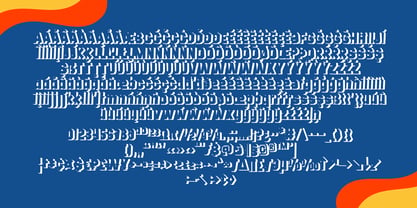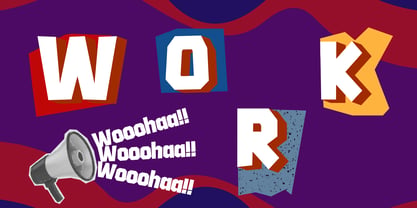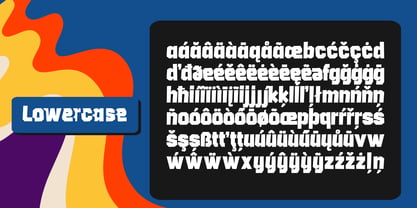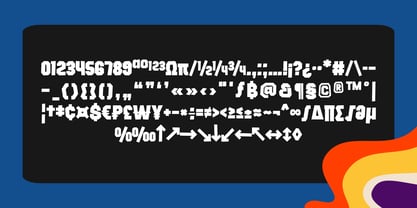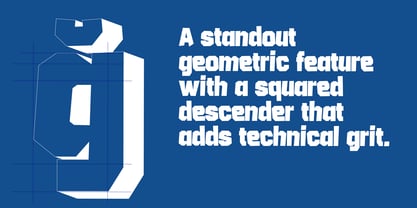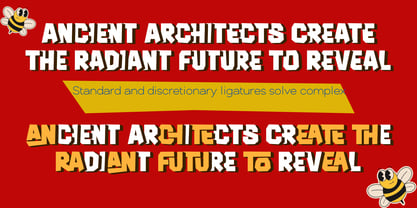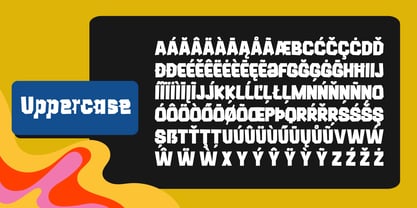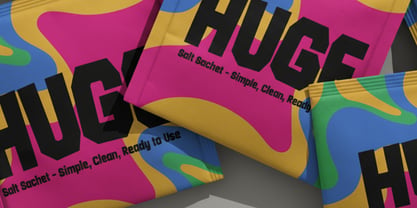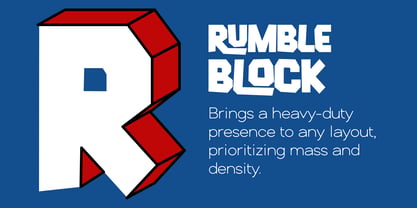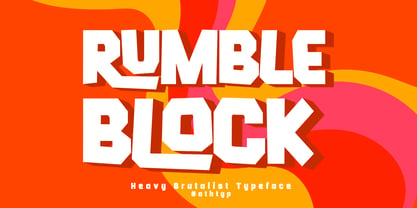
Rumble Block
by Authentype
The Rumble Block Font Family was designed by Ekayasa and published by Authentype. Rumble Block contains 2 styles and family package options. More about this family
This font is a bold statement in geometric construction. Built with rigid, chamfered corners and a dense optical weight, it captures an industrial aesthetic perfect for streetwear, esports branding, and architectural signage. The family includes a regular and a layered shadow style, allowing designers to create depth without complex effects. Its low x-height and tight counters create a rhythm of solid black shapes, making headlines feel grounded and structural. Whether used for a tech startup or a gritty editorial layout, this typeface provides a raw, unapologetic presence.